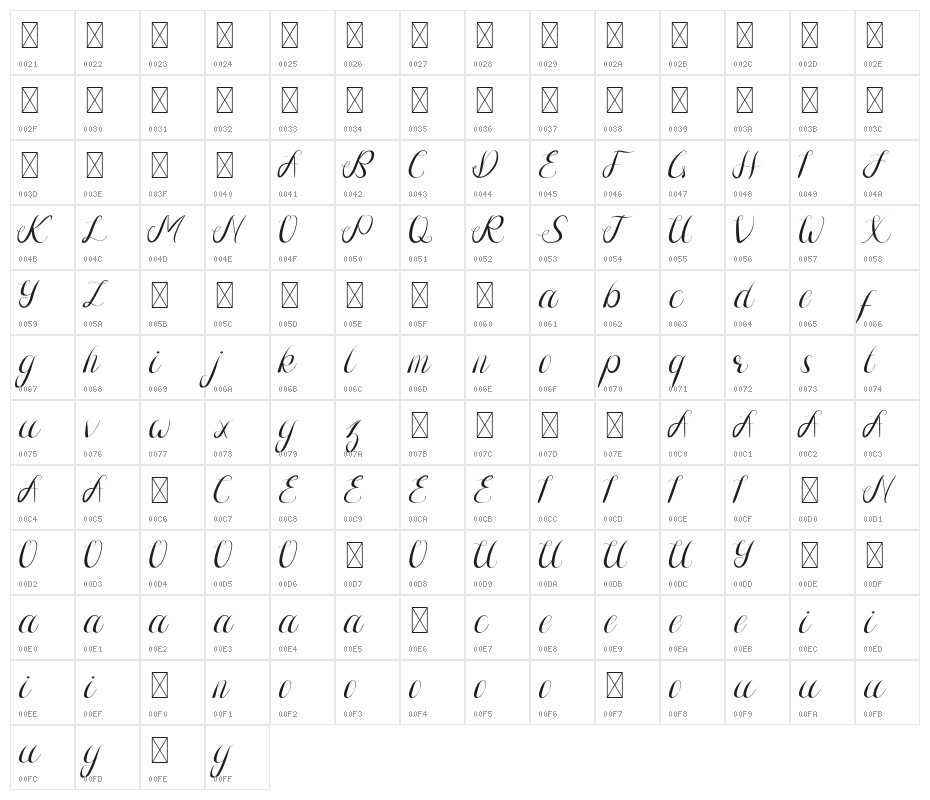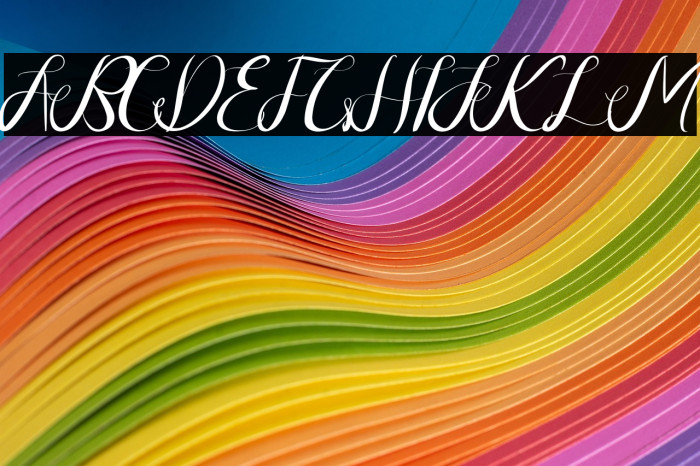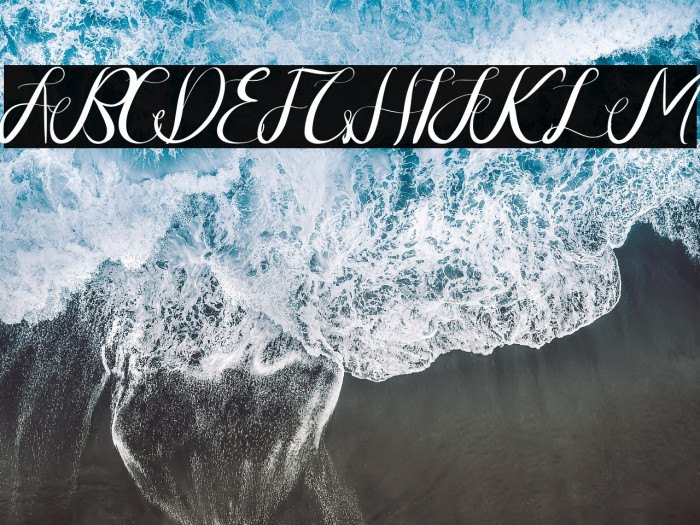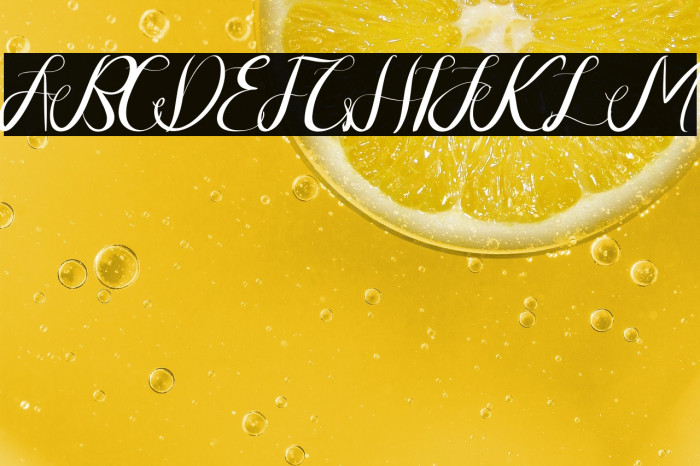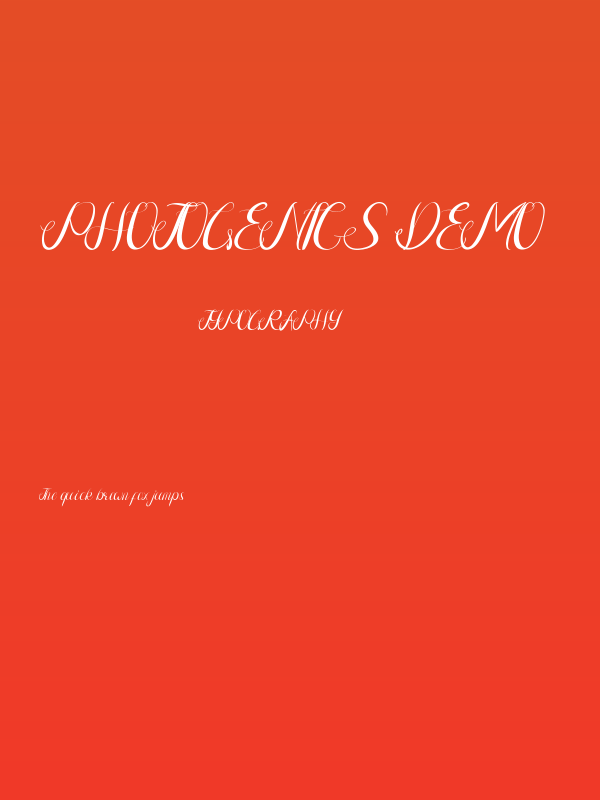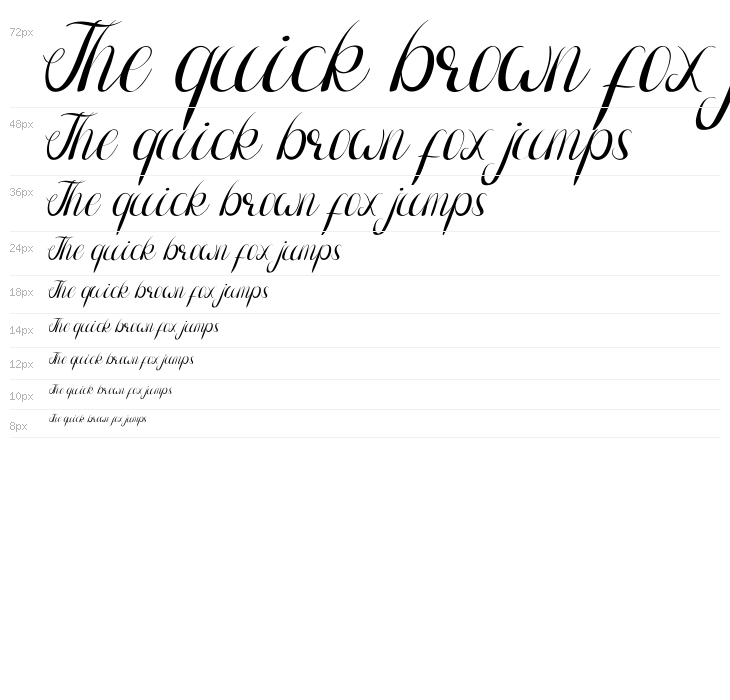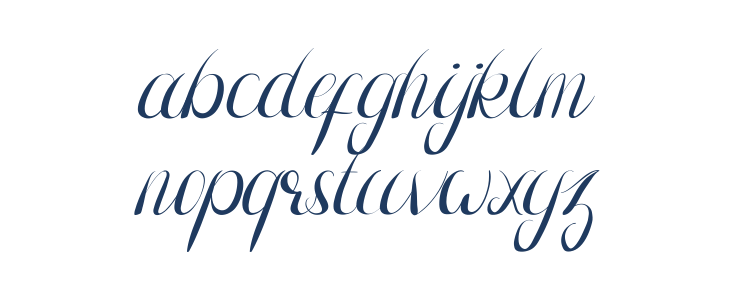
Photogenics Demo Font
Photogenics Demo Description
This elegant script font features flowing, interconnected letters with a distinct calligraphic style. The uppercase letters are adorned with graceful swashes and flourishes, adding a touch of sophistication and flair. The lowercase letters maintain a consistent rhythm, with smooth curves and a slight slant, enhancing the font's fluidity. The overall design exudes a sense of luxury and refinement, making it ideal for formal invitations, branding, and decorative purposes. The absence of numerals and special characters suggests a focus on aesthetic appeal rather than functionality.